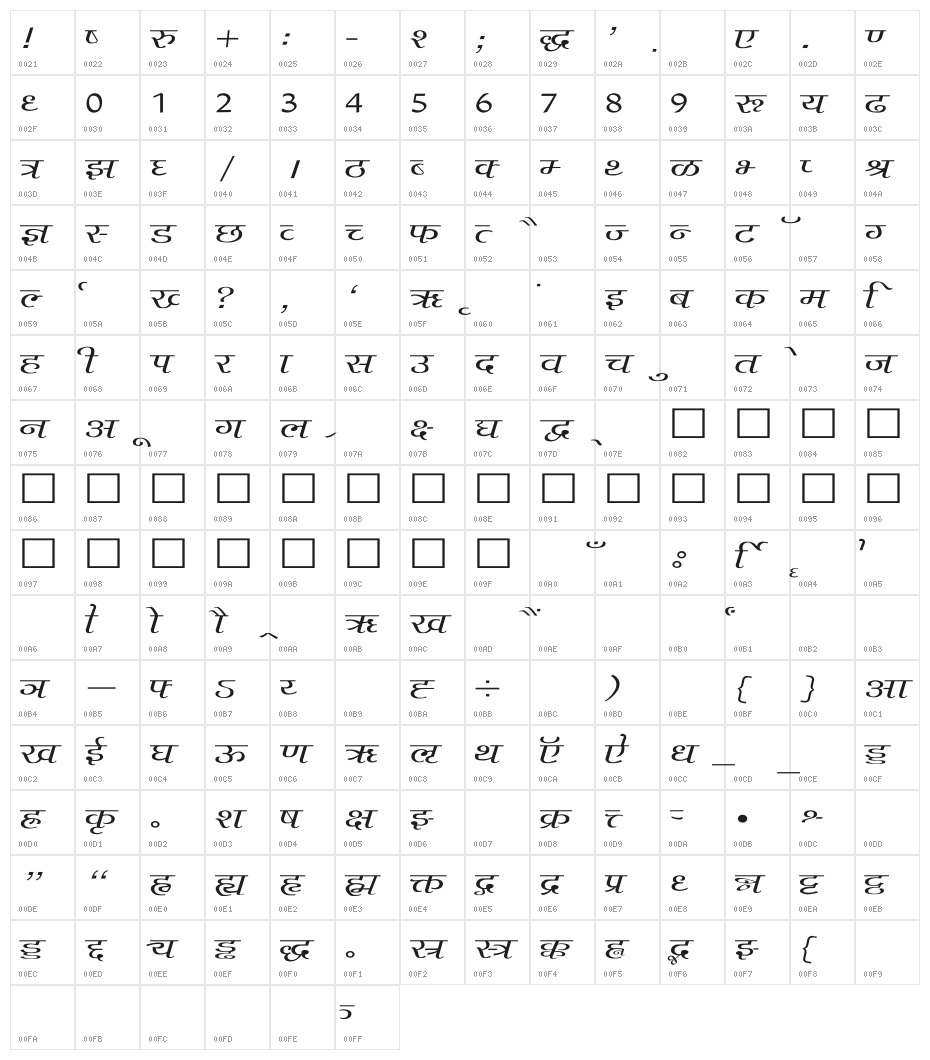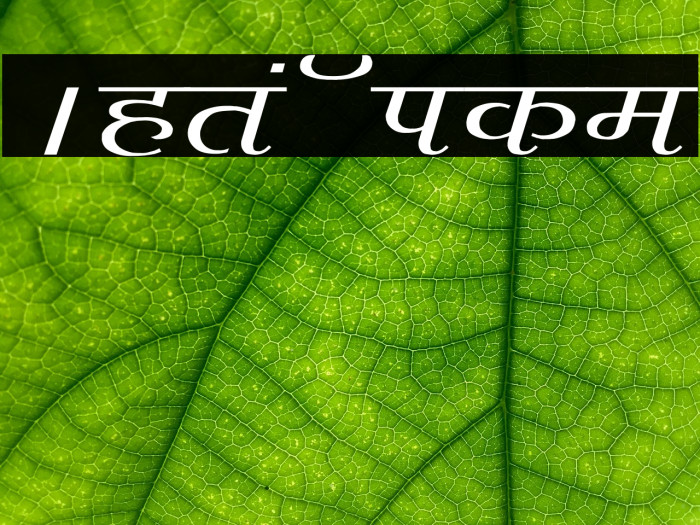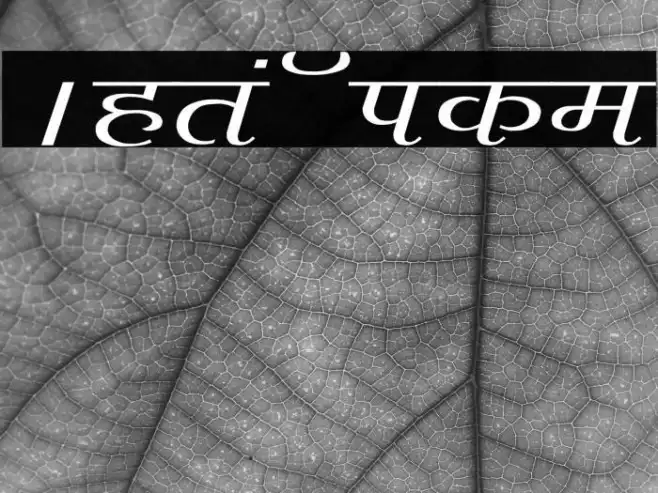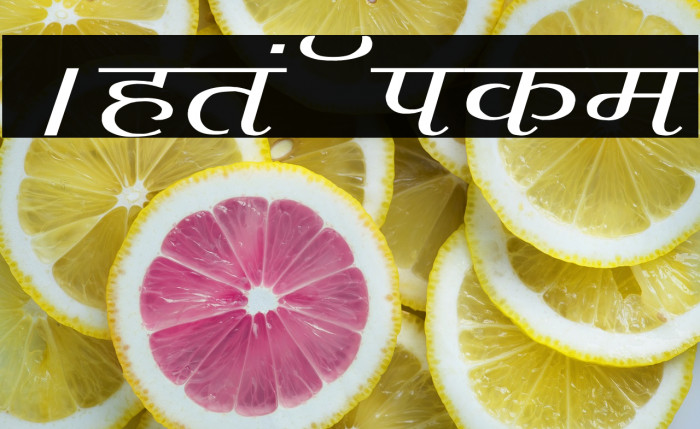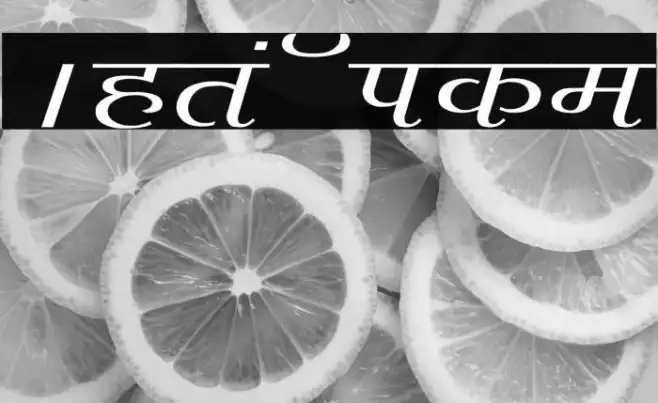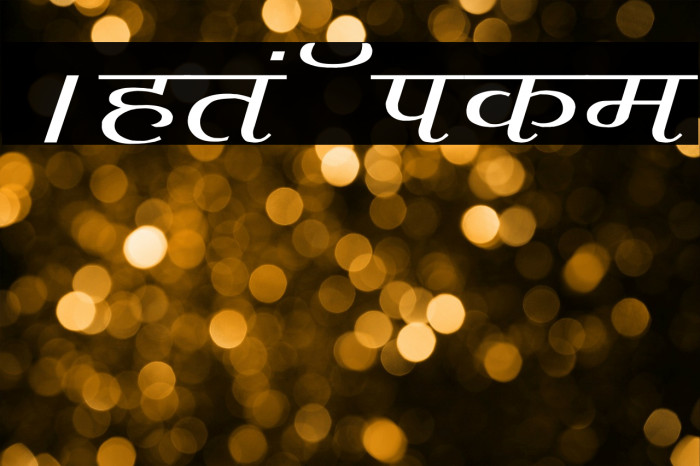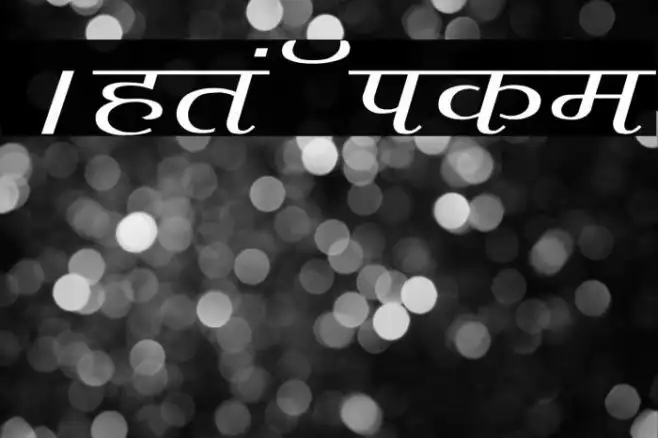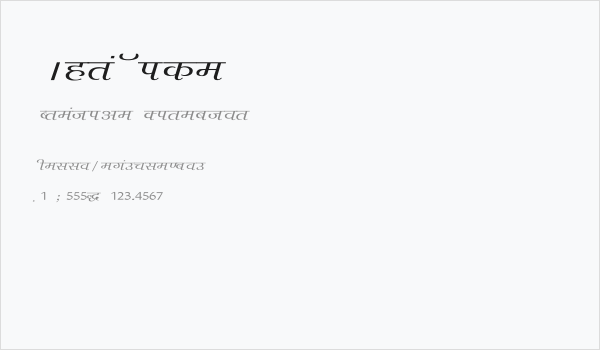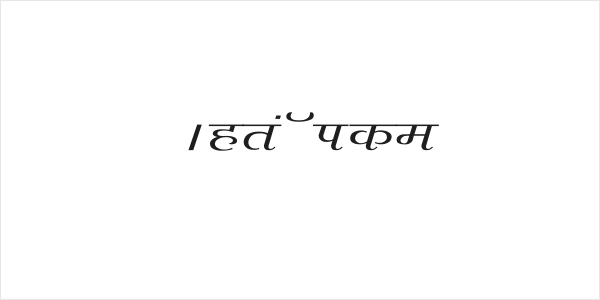
Agra Wide Font
Agra Wide Description
This font features a classic Devanagari script style with elegant curves and a traditional appearance. The characters are well-defined, with a moderate stroke contrast that enhances readability. The numerals are distinct and align well with the overall style, maintaining a consistent visual flow. Special characters are included, providing versatility for various uses. The font's design is suitable for both digital and print media, offering a timeless aesthetic that can complement a wide range of projects.